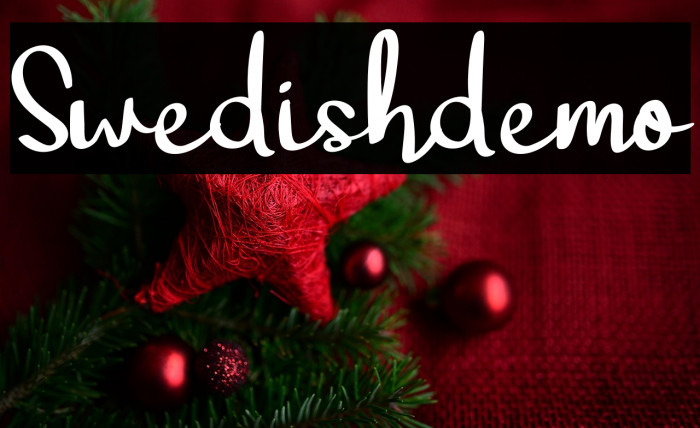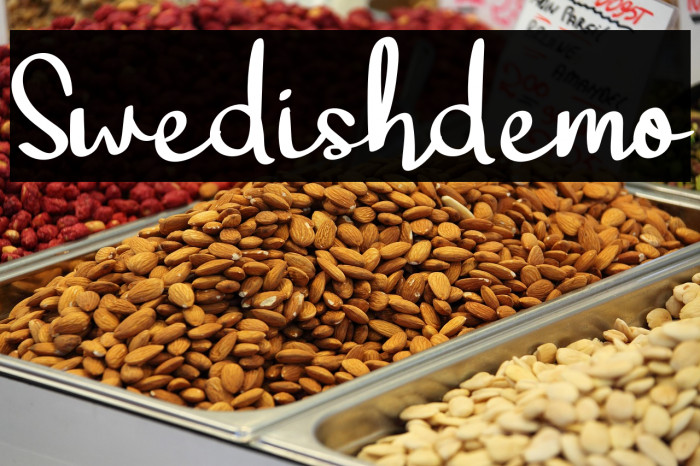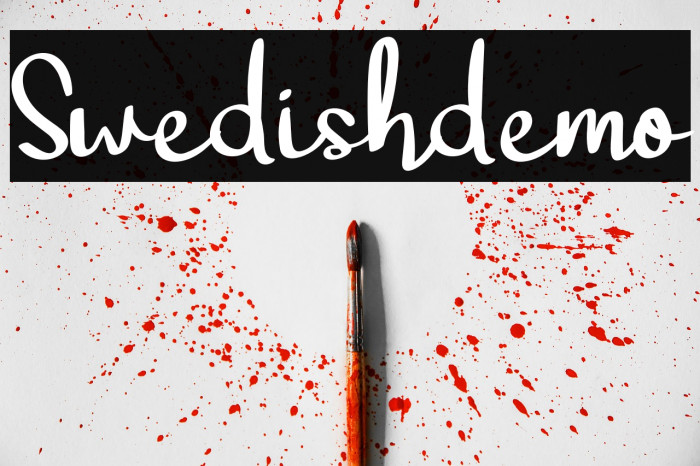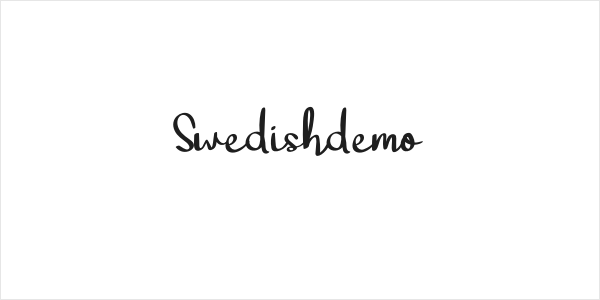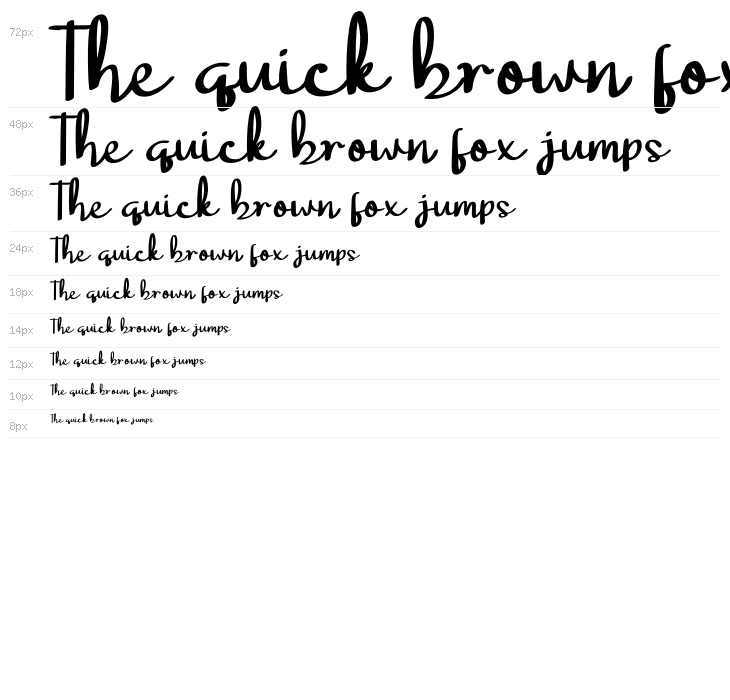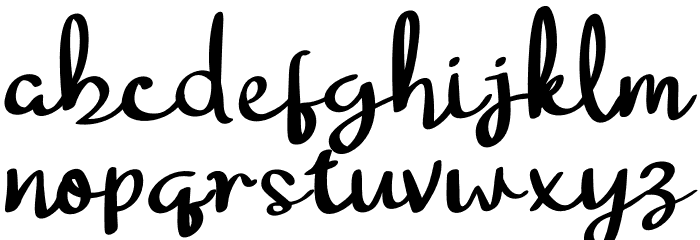
Swedishdemo Font
Swedishdemo Description
This font features a playful and bold script style, characterized by its smooth, flowing curves and a handwritten appearance. The uppercase letters are tall and slightly narrow, with a whimsical flair that adds personality to each character. The lowercase letters maintain a consistent flow, enhancing the font's cohesive look. The overall design is modern and lively, making it suitable for creative projects. The font's bold strokes and medium contrast give it a strong presence, while the character spacing is normal, ensuring readability. This font is ideal for adding a touch of elegance and fun to any design.
| Proposed Projects | Ideal for greeting cards, invitations, logos, and branding materials that require a personal touch. |